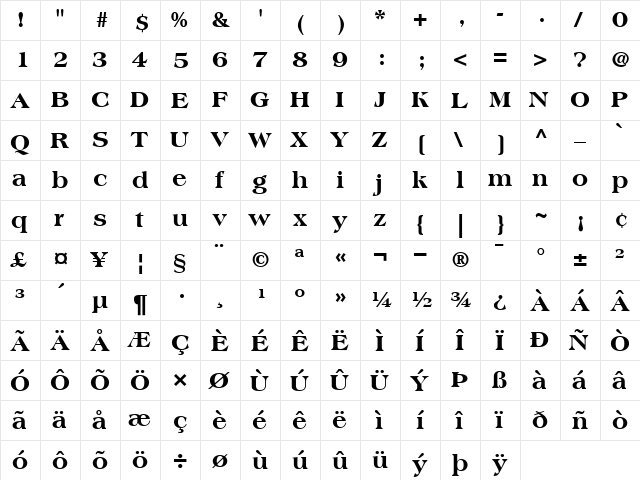
Americana-ExtraBold Extra Bold
Design Context for Americana-ExtraBold Typeface
Americana-ExtraBold takes a measured approach to typography — its balanced proportions and neutral character make it a reliable workhorse for both digital and print work. The heavy weight commands attention and anchors typographic hierarchies.